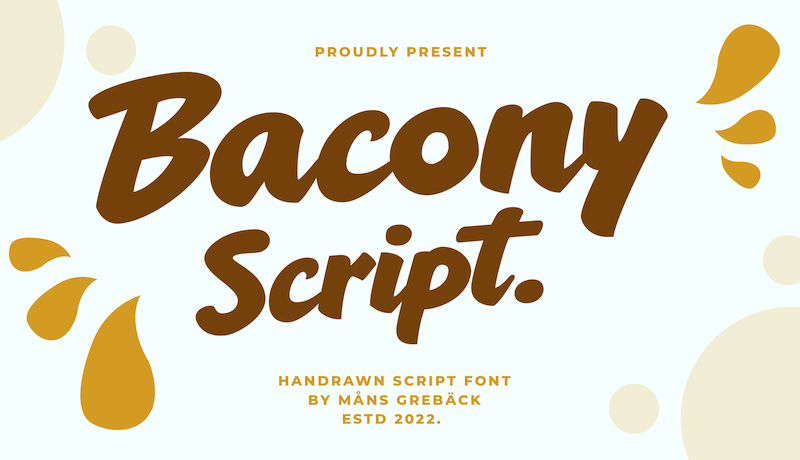
Font name: | Bacony Script |
NOTE: This font is for PERSONAL USE ONLY! To purchase a commercial license, visit: http://mn.sg/bacony-script This rustic font is expressive, and is constructed of fat brush strokes and heavy letterforms. Use it for a comical logotype or headline to give your work that genuine hand-painted look. For questions, please visit www.mansgreback.com/faq |